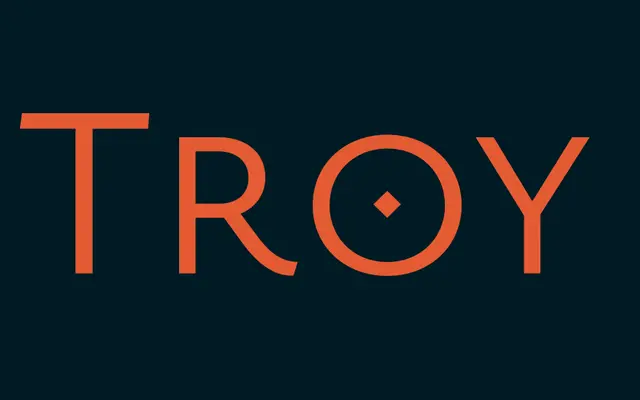
A single-weight sans-serif from Indian Type Foundry with very limited available style information.
Troy Sans is a sans-serif offered by Indian Type Foundry in a single Regular weight. The page provides little contextual detail about its design origins or intended use cases. At one style and a modest price point, it appears to be a restrained, workhorse-leaning typeface.
Named 'Troy Sans' and offered as a sans-serif by ITF; minimal page detail available but the naming convention and classification context suggest a standard grotesque or humanist sans design.